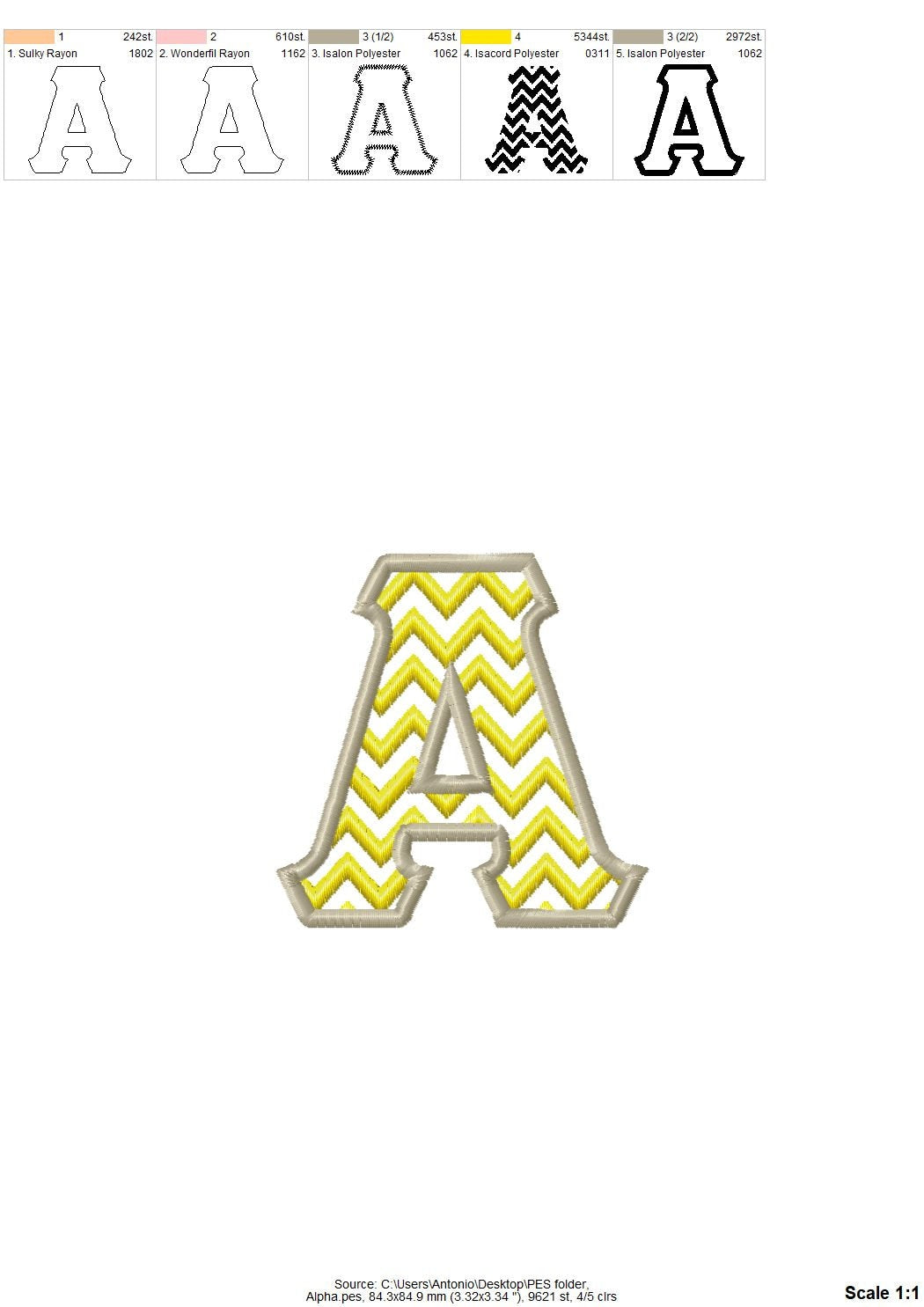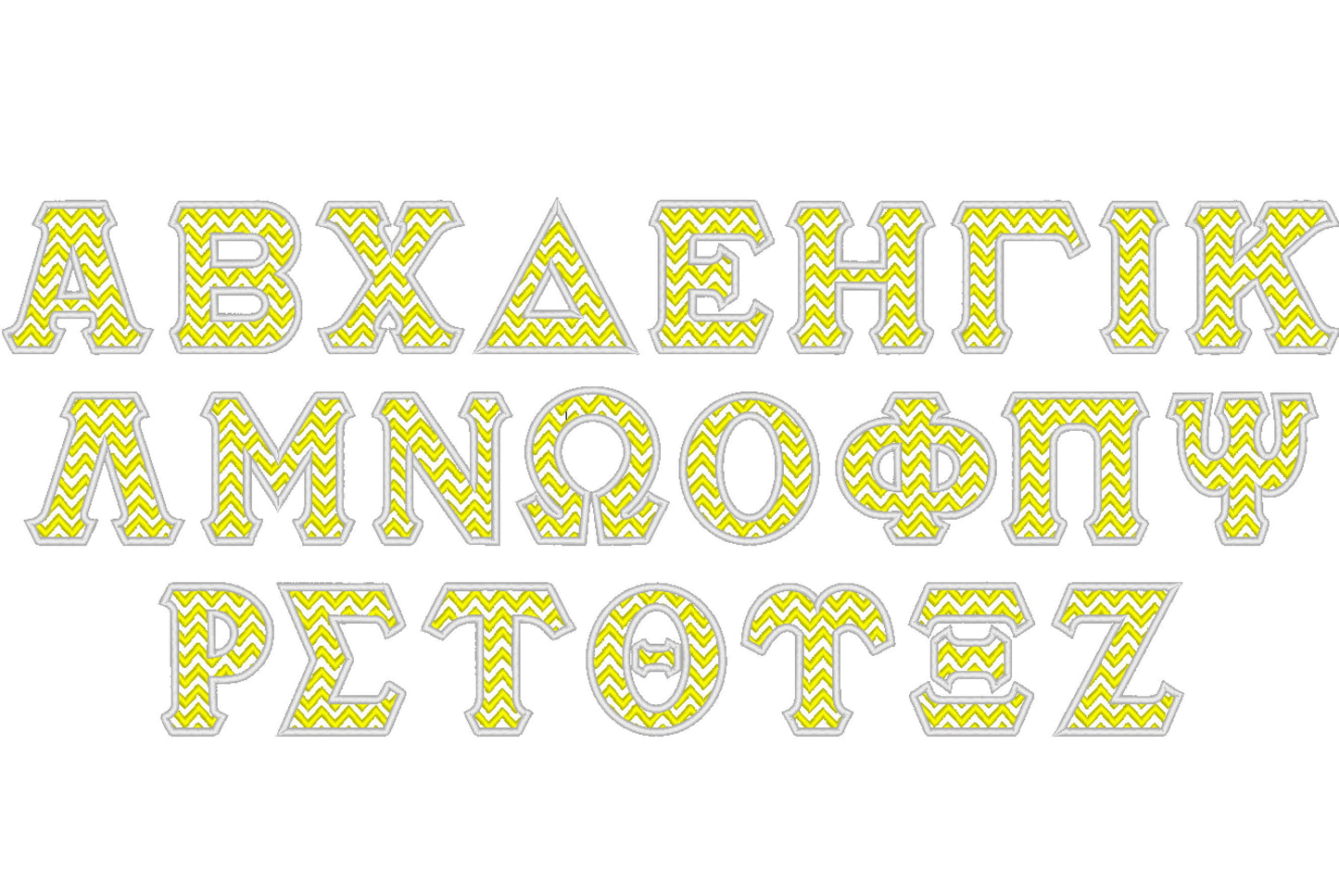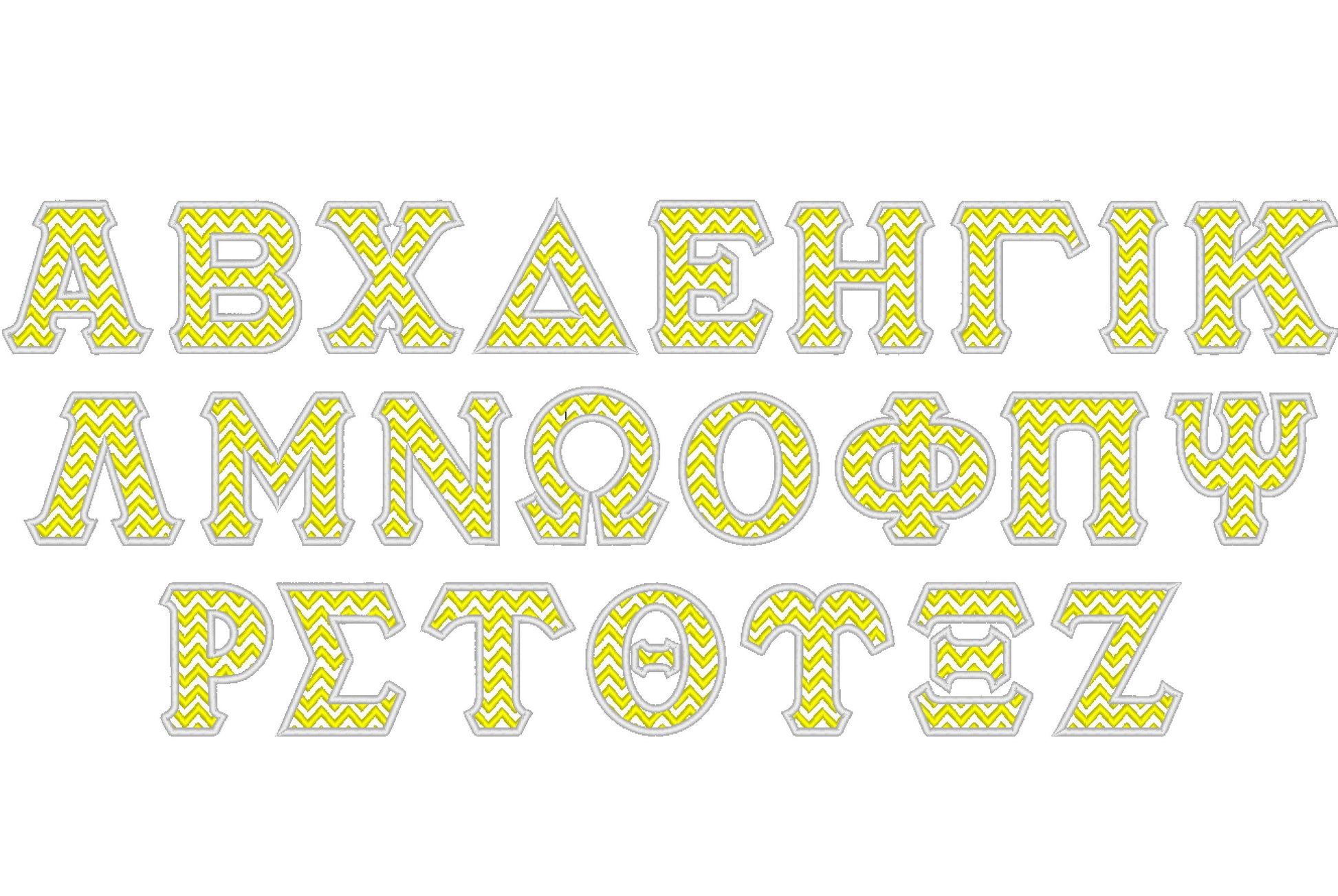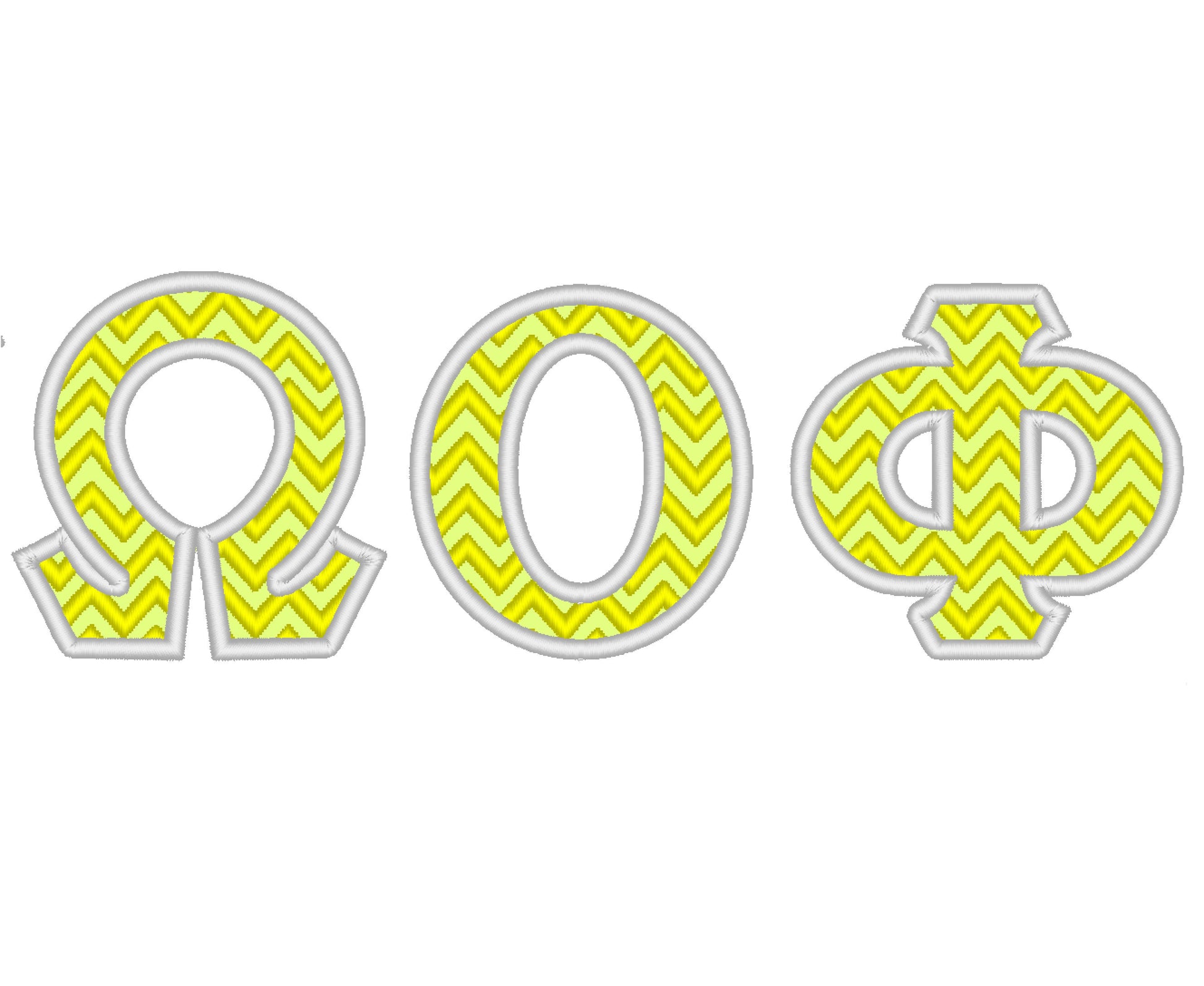
Chevron Sororities Greek Font Applique
All 24 Greek letters in one-step applique with chevron stripes stitched over the fabric. Letters come in four sizes: 2.5, 3, 3.5 and 4 inches.
- Whole Greek alphabet, 24 chevron applique letters
- 4 sizes, 2.5 to 4 in